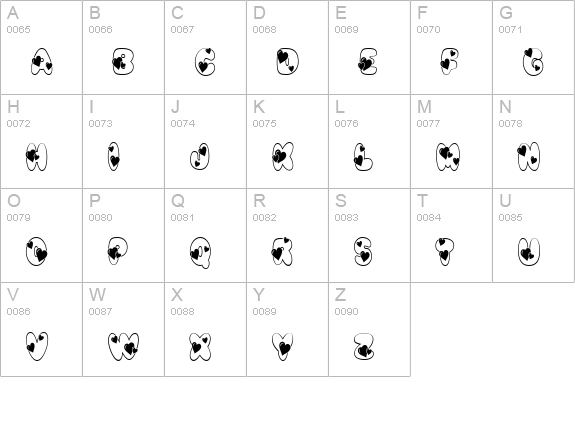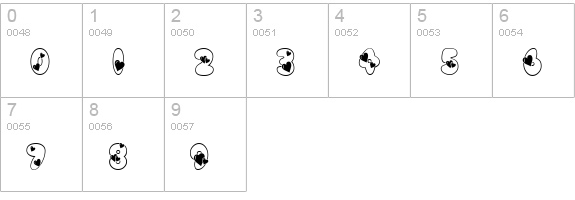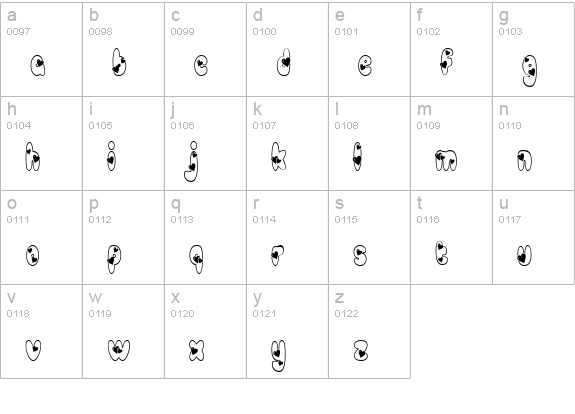
Newlywed font is a charming and elegant typeface that perfectly captures the essence of love and romance. With its delicate curves and graceful letterforms, Newlywed is ideal for wedding invitations, love letters, and any design project that requires a touch of sophistication. This timeless font exudes a sense of warmth and intimacy, making it the perfect choice for celebrating new beginnings and special occasions. The best part? Newlywed font is completely free to download at FontsMarket.com! So whether you're a graphic designer working on a wedding project or a newlywed couple looking to add a personal touch to your invitations, you can easily access this beautiful font without any cost. Don't miss out on the opportunity to enhance your designs with the elegance and charm of Newlywed font – download it today and let your creativity shine!